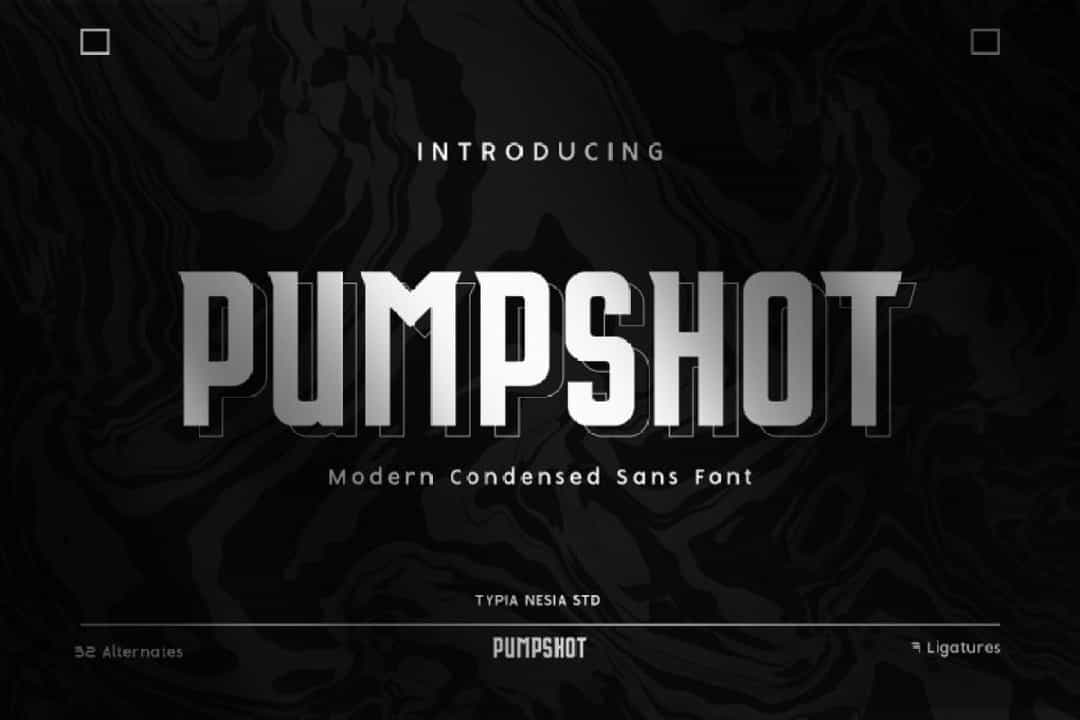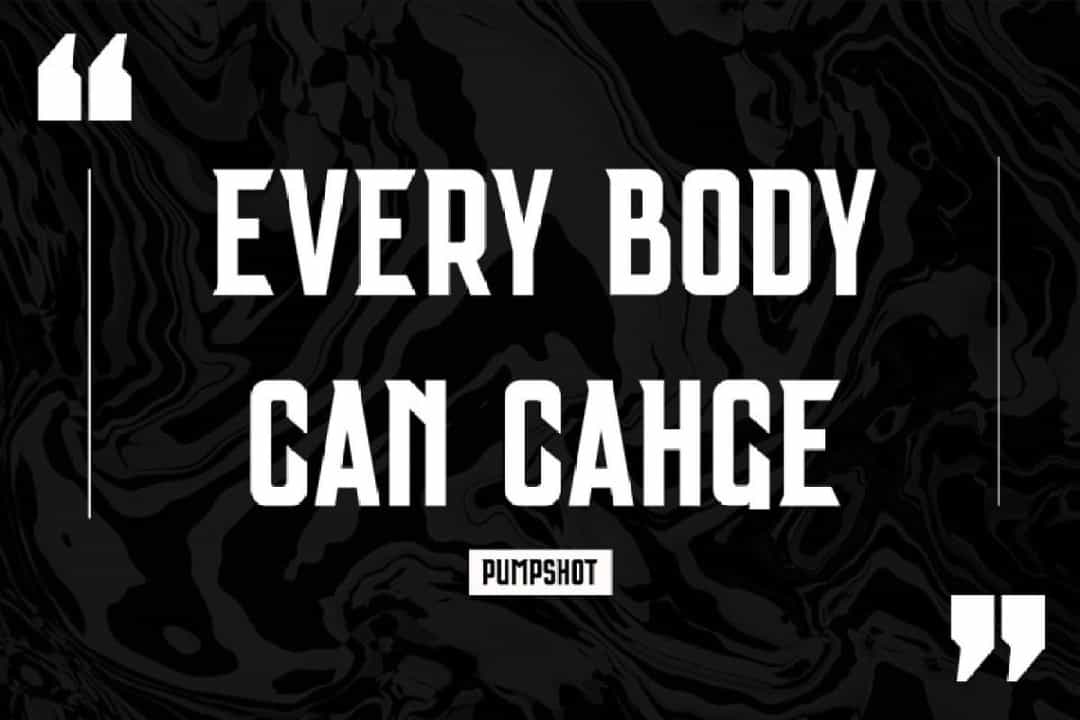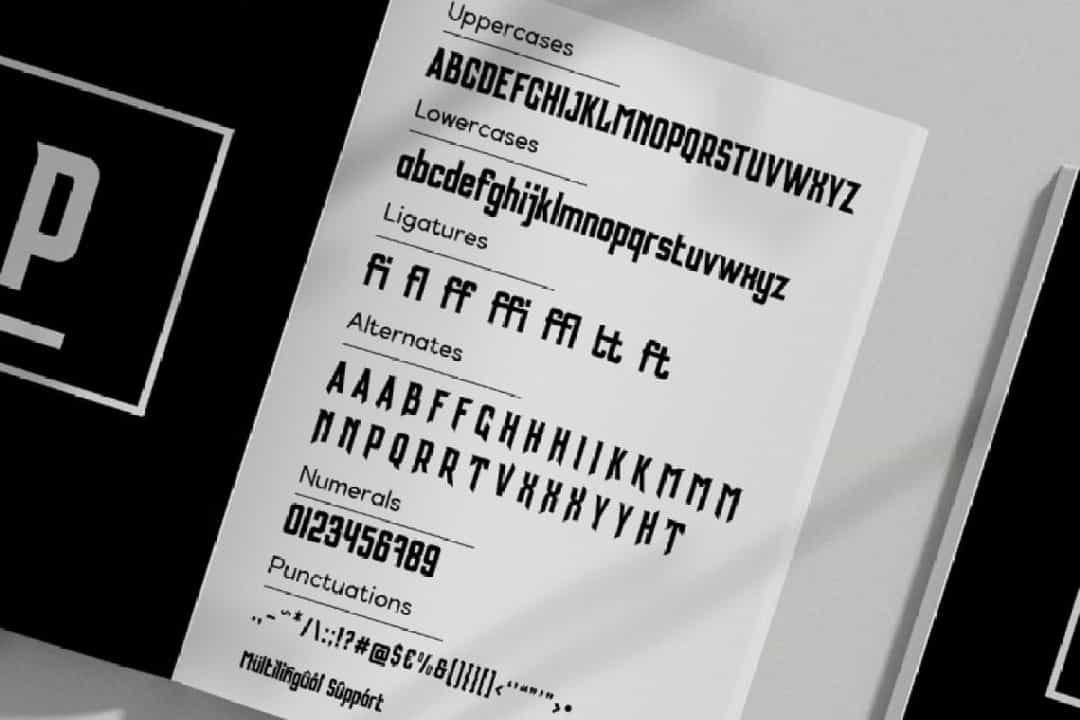
Pumpshot Fashion and Sport Font Contemporary Bold Sans Serif Font. Pumpshot font is ideal for any project including logo branding creative design and stationery designs, fashion designs, sport designs, gaming blog designs, advertising designs, invitation cards art quotes books/cover titles special events as well as much more.